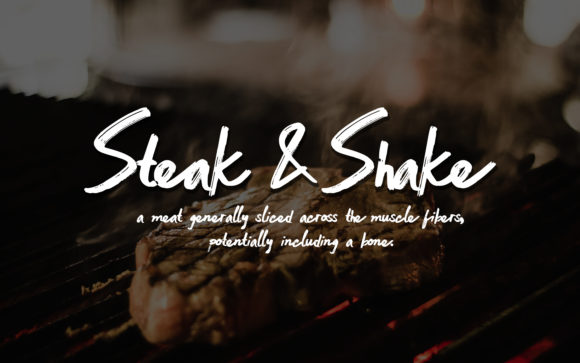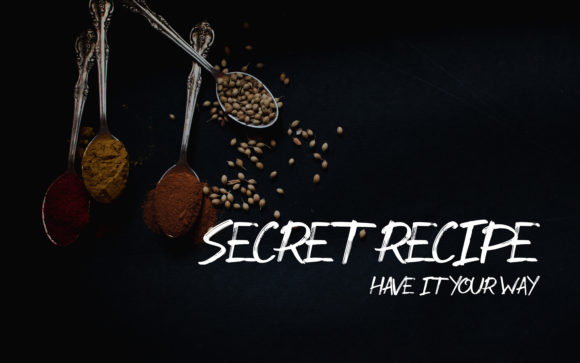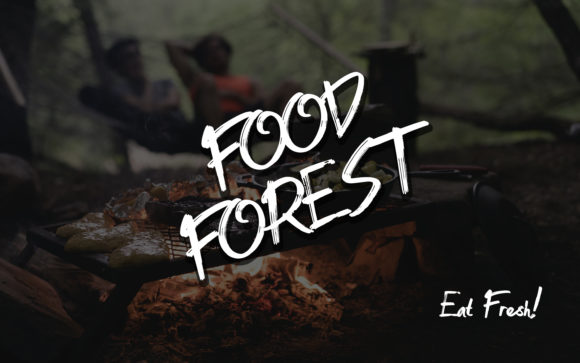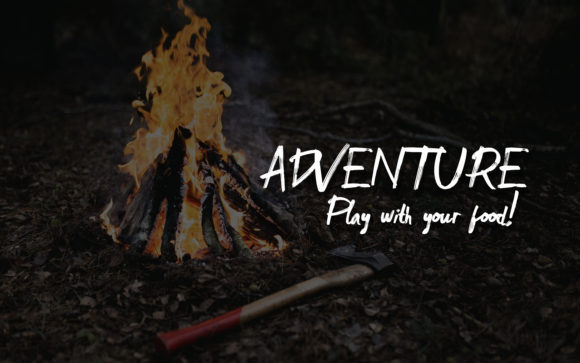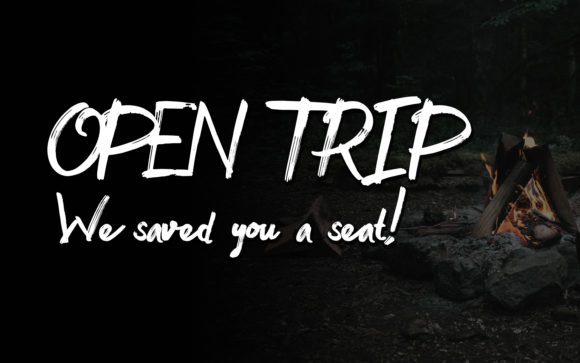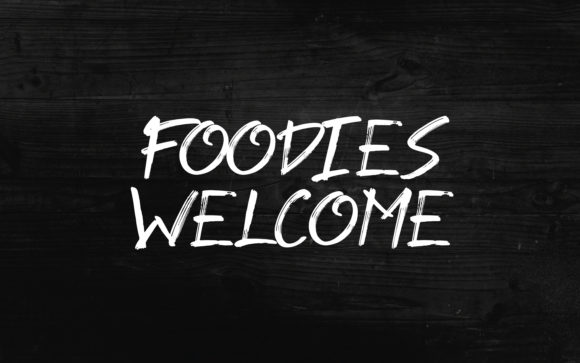
Introduction to Hot Spicy Font
Have you ever been working on a design project and felt like something is missing, like a burst of energy and excitement to elevate your creative vision? For designers, finding the right font can be the key to unlocking a truly memorable design. That’s where the Hot Spicy Font comes in – a strong and rough brush display font that’s guaranteed to add a bold touch to any project.
As a valuable design resource, the Hot Spicy Font is perfect for designers looking to create eye-catching posters, flyers, or prints that stand out from the crowd. With its high-quality design, this font is ideal for any creative project that requires a bit of edge and sophistication. Whether you’re working on a commercial project or a personal art piece, the Hot Spicy Font is sure to be a game-changer.
Key Features of Hot Spicy Font
- High-quality design resource perfect for creative projects and presentations.
- Unique, hand-drawn design with a bold and spicy flair, ideal for adding a touch of personality to your work.
- Size: Includes 6 font styles (Regular, Bold, Italic, Bold Italic, Outline, and Shadow) for added versatility.
Honest Review: Hot Spicy Font
I recently stumbled upon the Hot Spicy Font, and I must say it’s a great addition to my design resource collection. As a designer, I appreciate high-quality fonts that can elevate a creative project. The Hot Spicy Font does just that with its unique and bold style.
- ✨ Unique and bold design that can add a pop of personality to any project
- ✨ Can be used on a transparent background, giving designers more flexibility
However, there are a few limitations to consider. The font may not be suitable for all types of projects, particularly those that require a more subtle or minimalist design approach. Additionally, the font may not be as versatile as some other options on the market.
- ⚠️ May not be suitable for projects that require a more subtle design approach
- ⚠️ May not be as versatile as other font options
Overall, I’m impressed with the Hot Spicy Font and would recommend it to designers looking for a unique and bold font to add some excitement to their creative projects.
How to Use Hot Spicy Font
Hot Spicy Font is a high-quality design resource ideal for creative projects that require a bold and attention-grabbing font. It features a transparent background, making it easy to integrate into various design applications.
Tips for Getting the Most Out of Hot Spicy Font
To get the most out of the Hot Spicy Font, experiment with different font sizes, colors, and combinations to create unique and engaging designs.
Hot Spicy Font is perfect for use in social media graphics, advertisements, and promotional materials. It’s also ideal for creating bold and attention-grabbing headings for websites and blogs.
Q: Is the Hot Spicy Font suitable for high-quality print projects?
Yes, the Hot Spicy Font is designed to be high-quality and suitable for print projects. It has been optimized for use in various print materials, including business cards, brochures, and posters. The font’s high-quality design ensures that it will look great in print, even at large sizes.